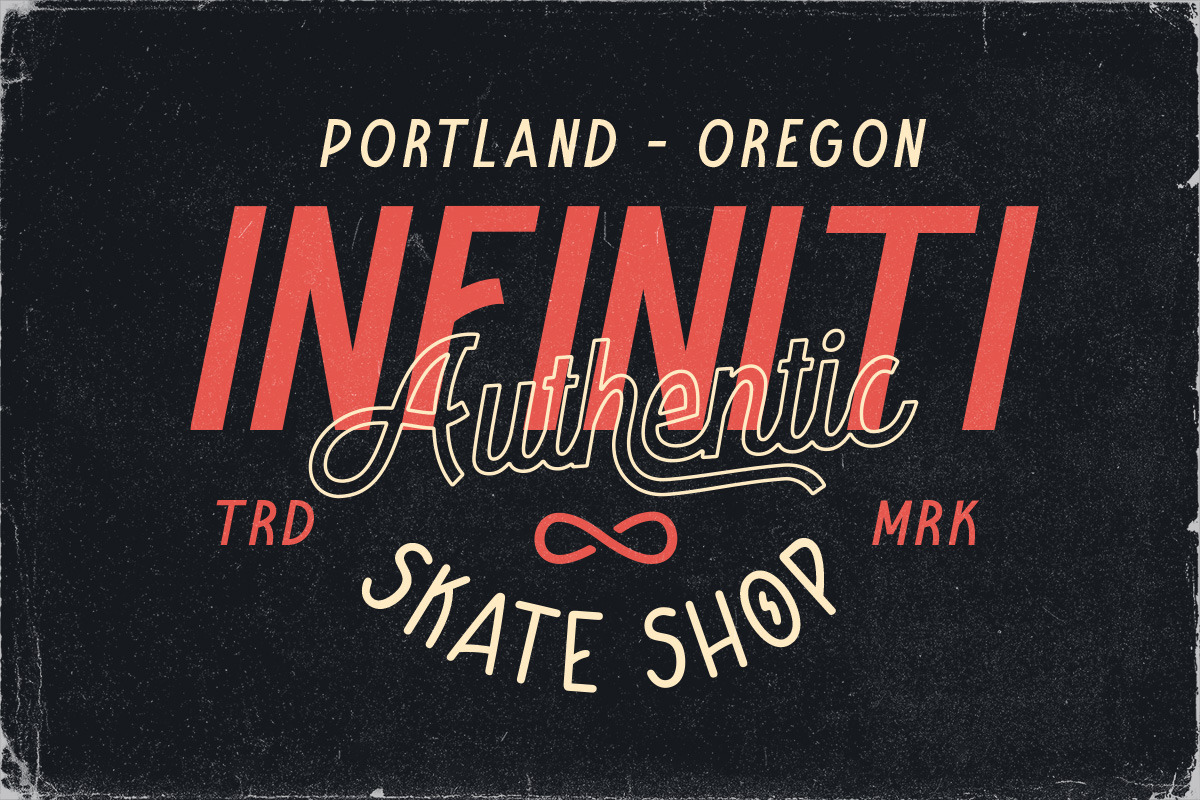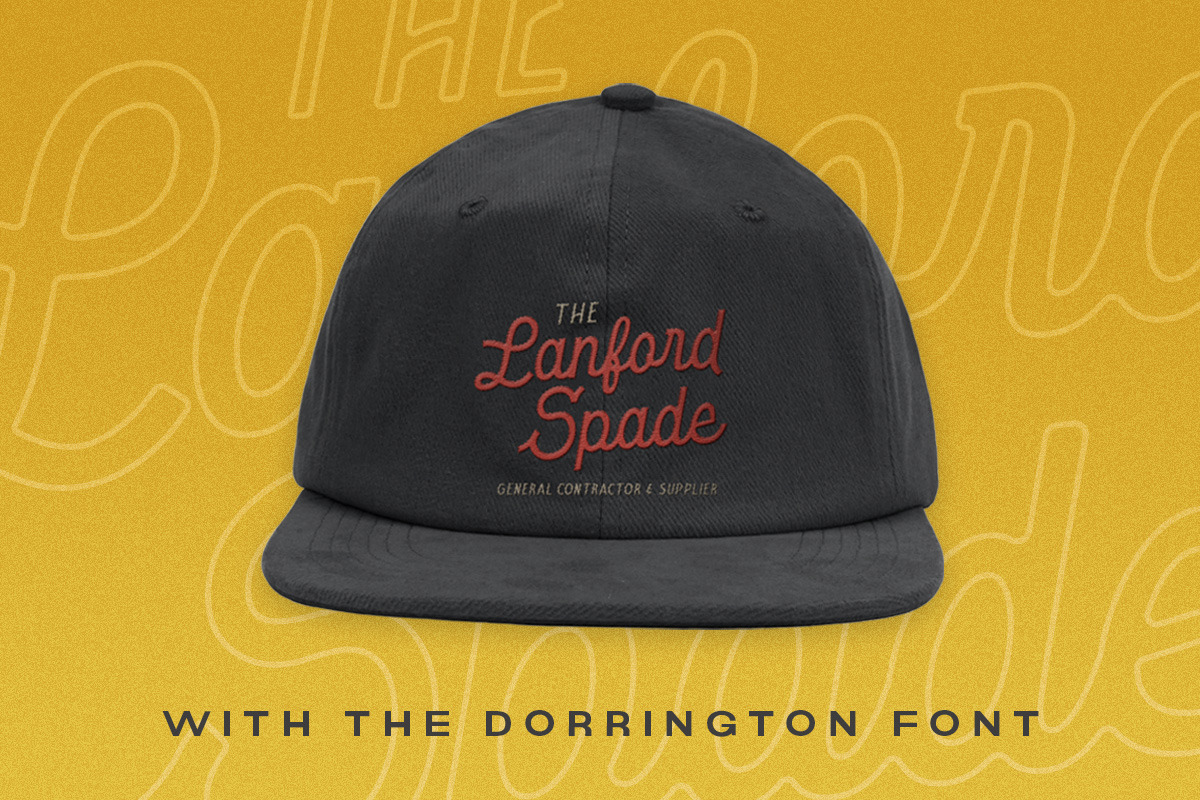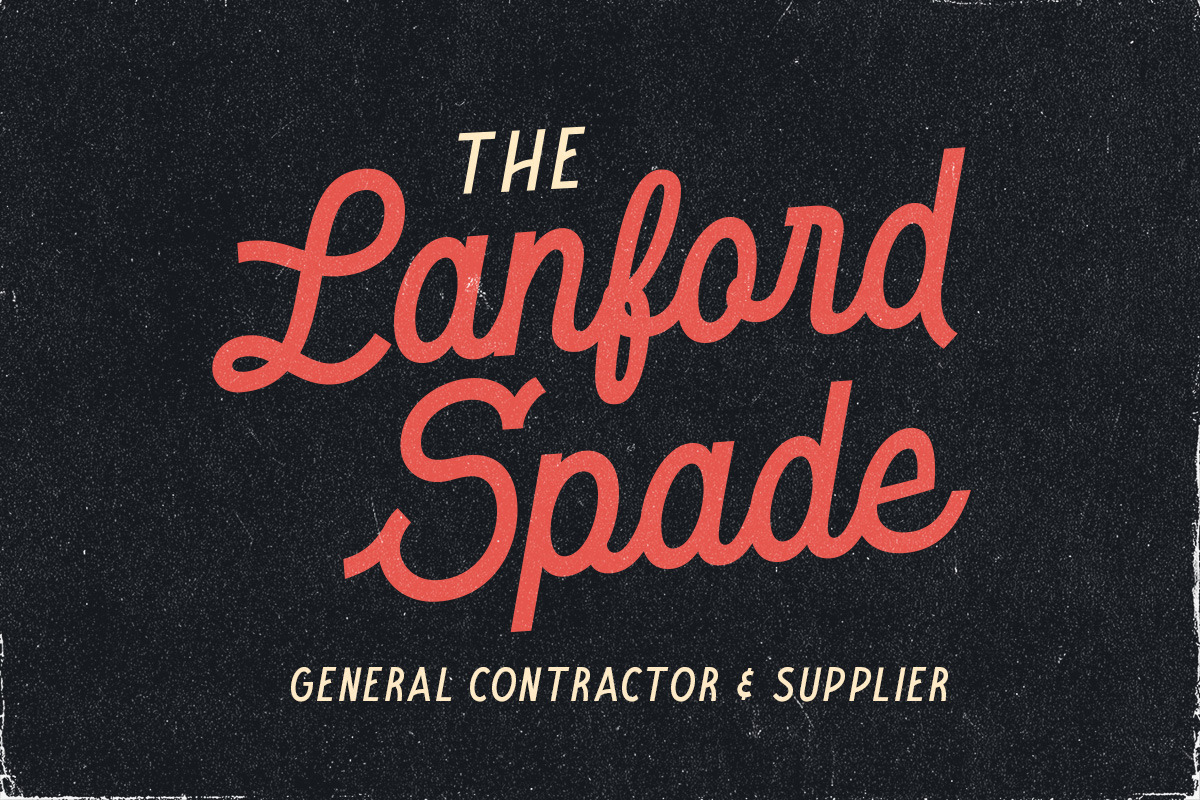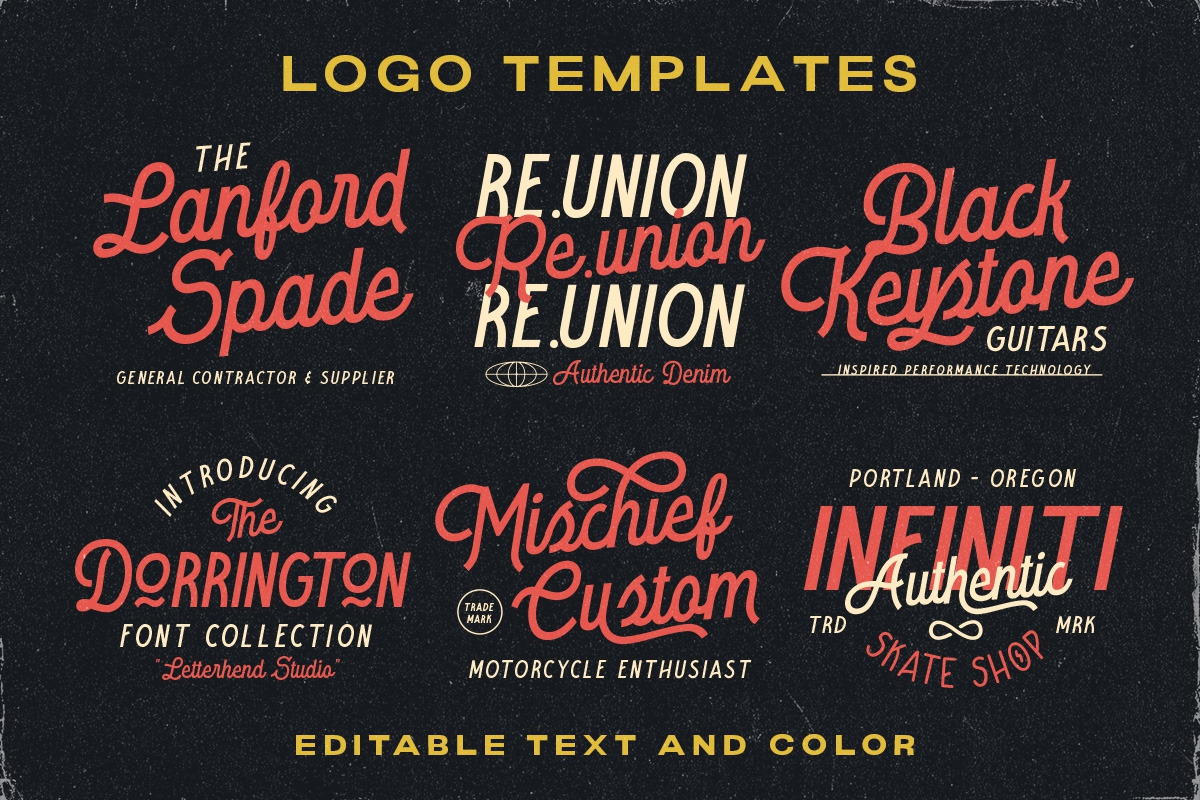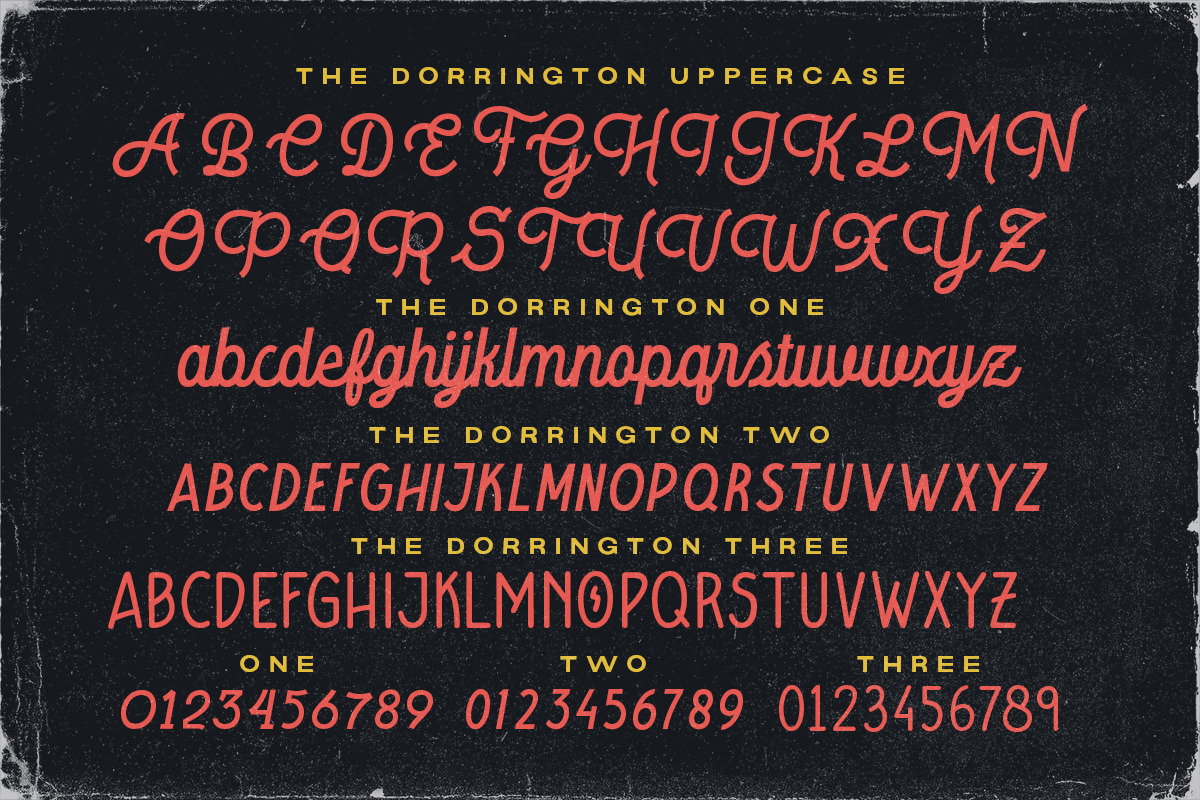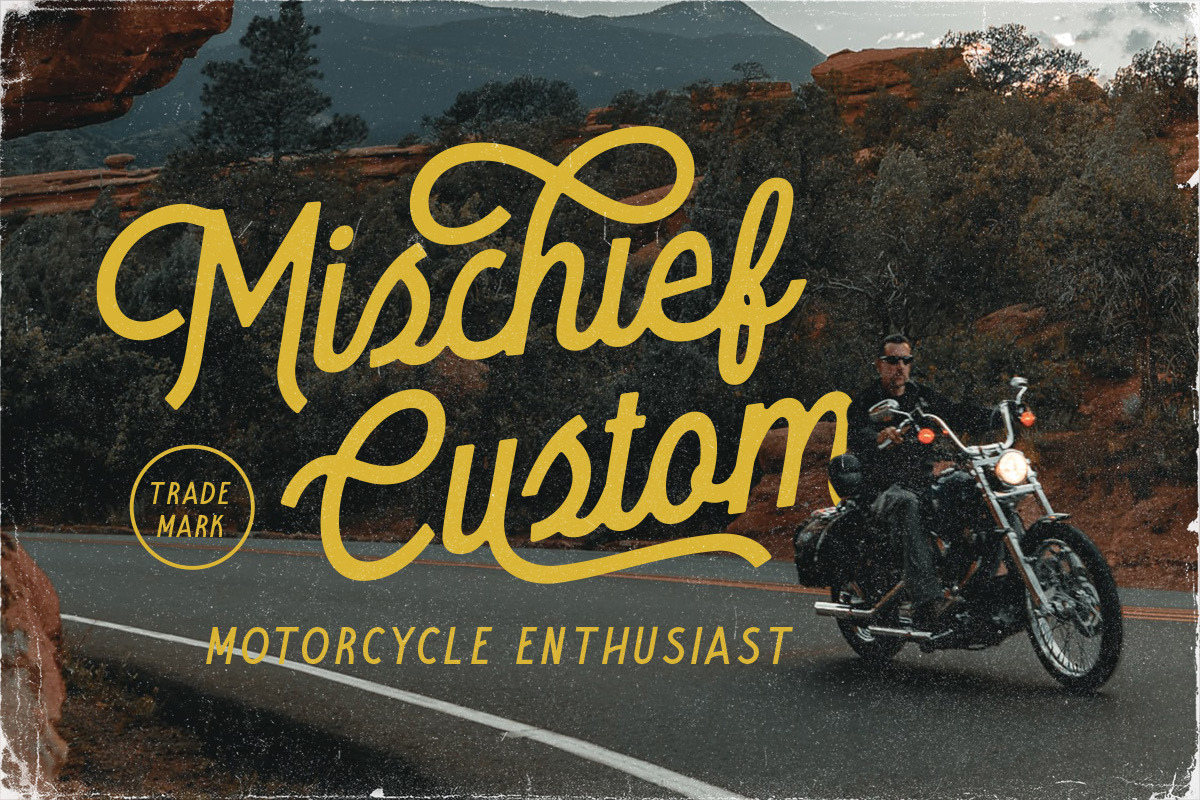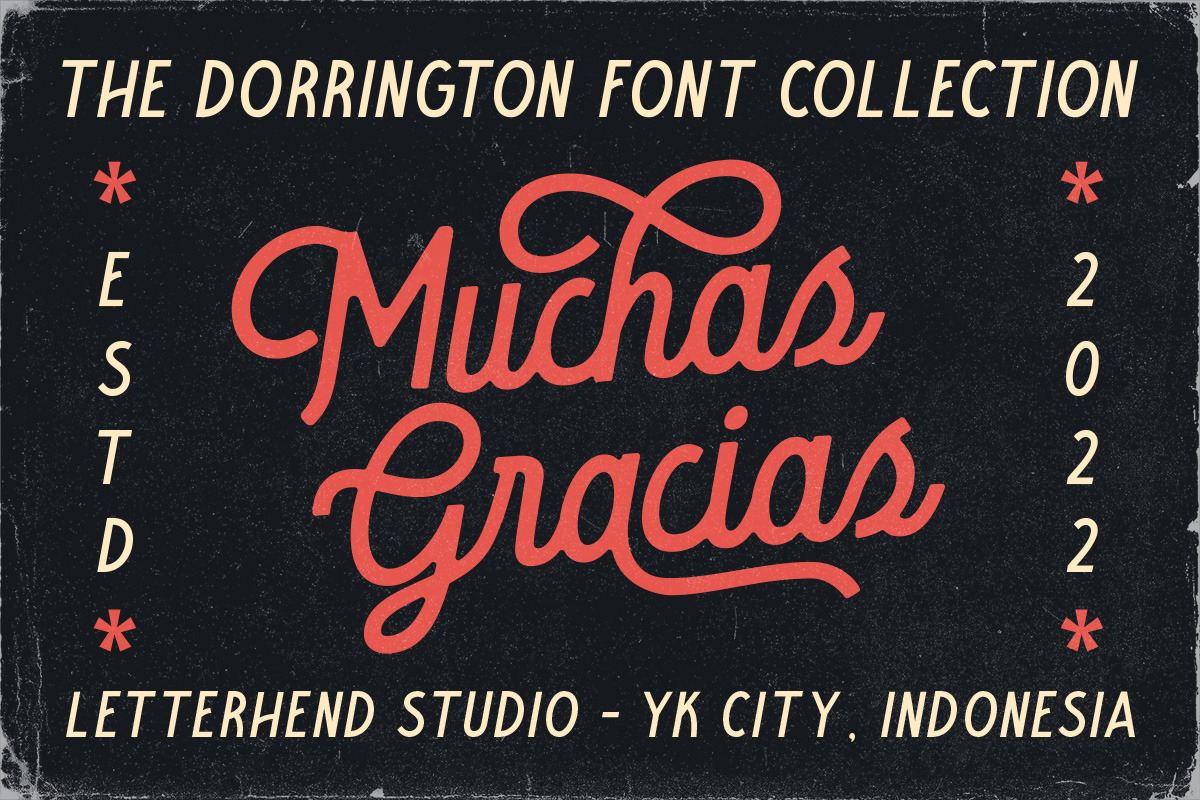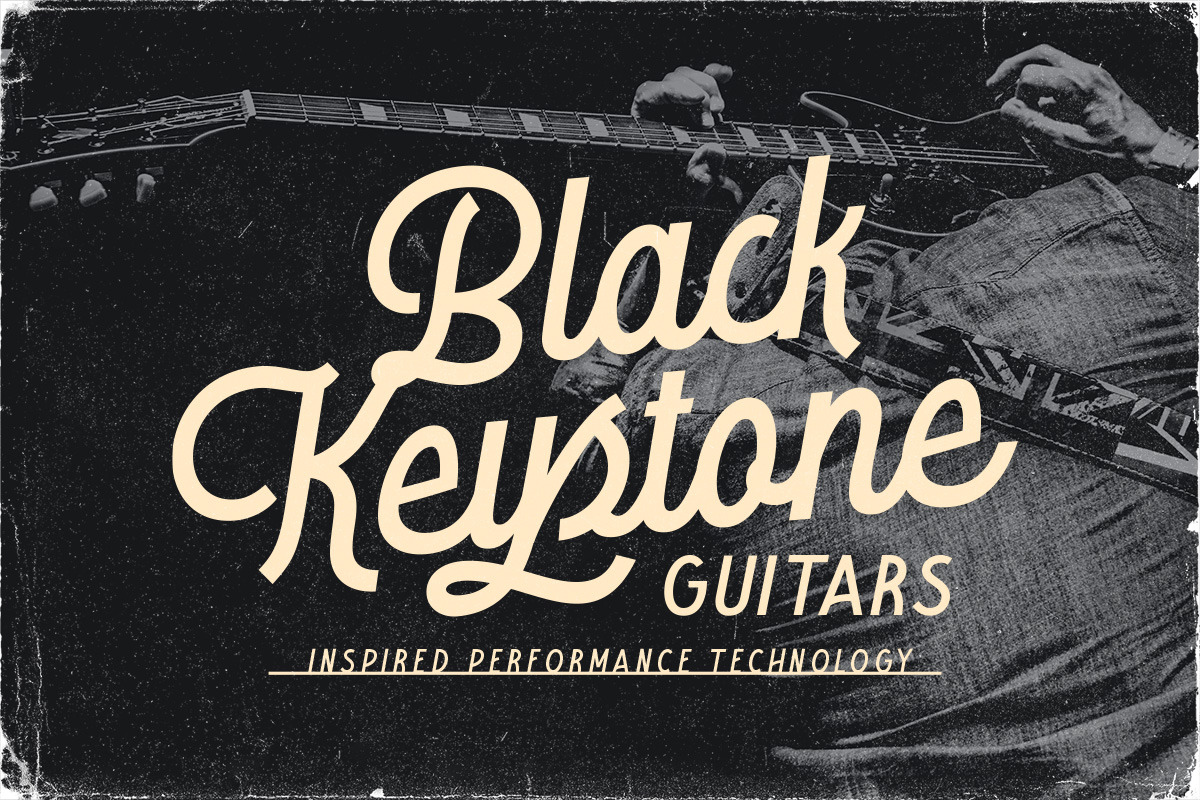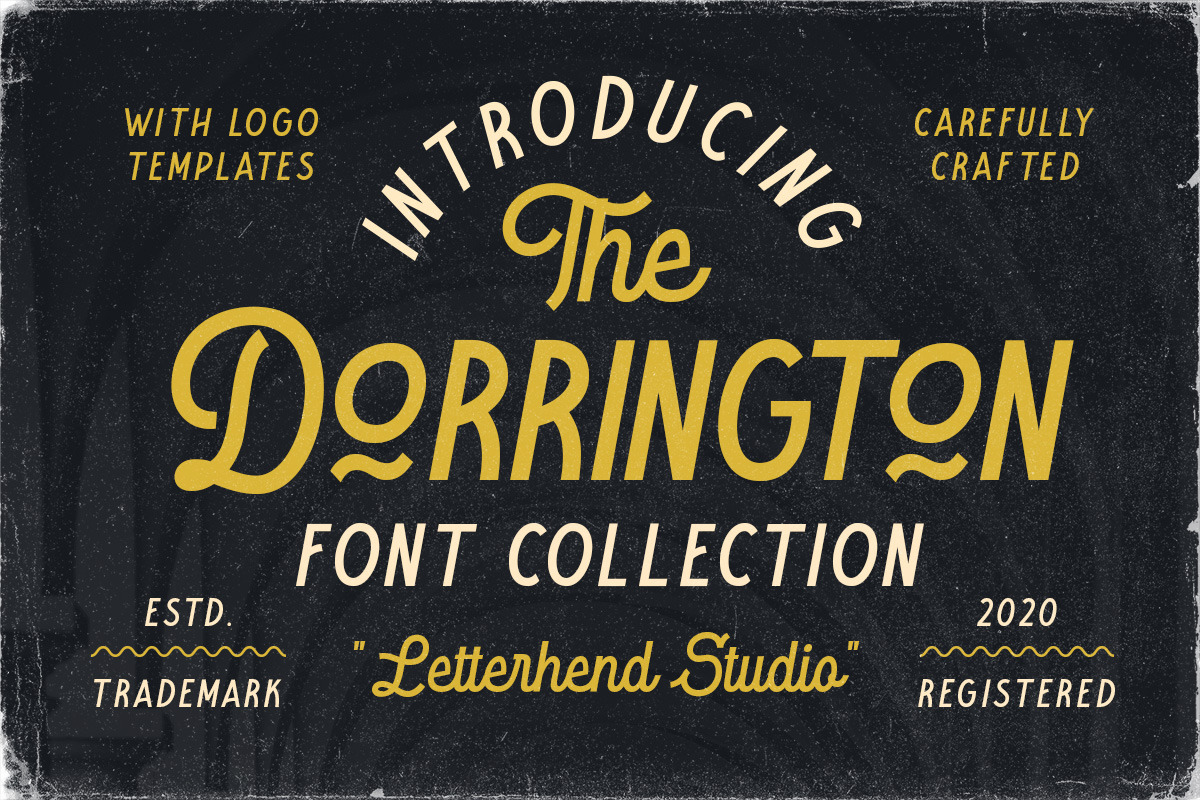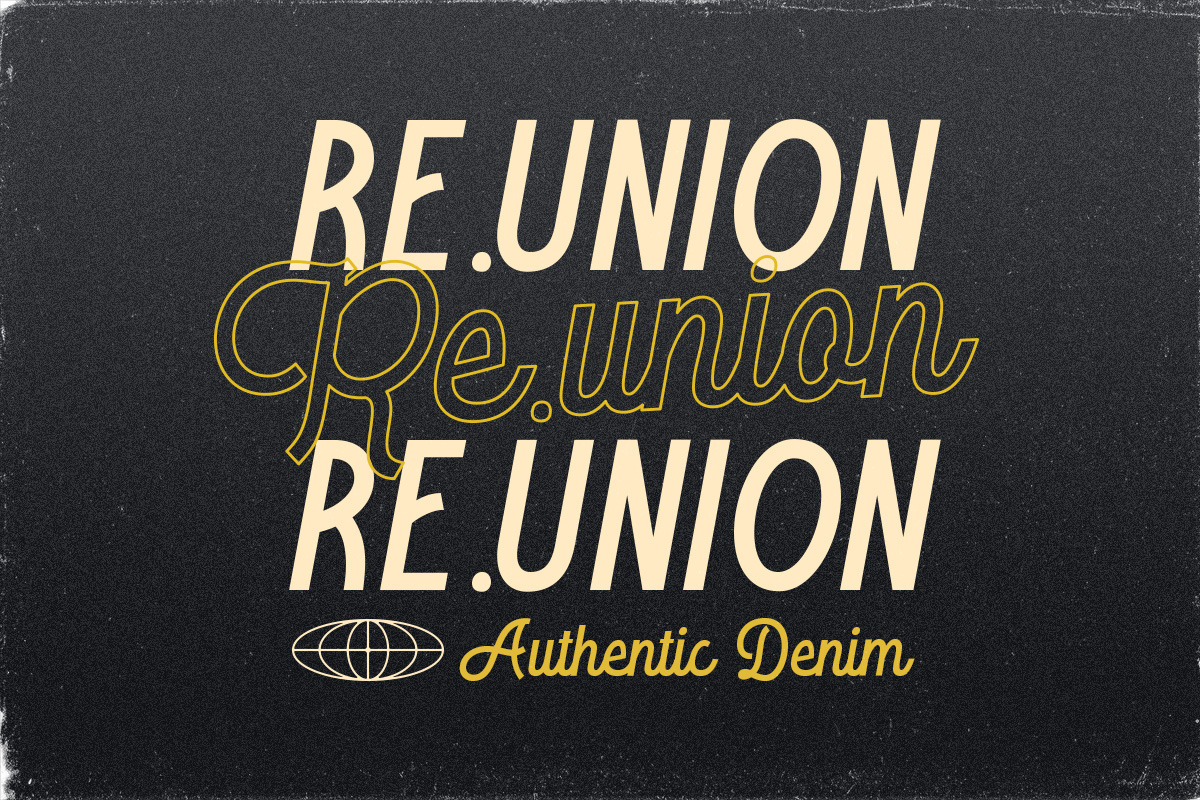
The Dorrington - Font Trio & Extras
The Dorrington is a font trio package contain a monoline script and sans serif which looks great to be paired especially for vintage and adventure theme! It also comes with extra premade logo! This font trio is purposely made for headline, display or logotype, and signature which need a standout appearing. This font is also suitable to be applied especially in logo, and the other various formal forms such as invitations, labels, logos, magazines, books, greeting / wedding cards, packaging, fashion, make up, stationery, novels, labels or any type of advertising purpose.
- 2 Monoline Script Font and 1 Sans serif font
- premade logo
- alternates & ligatures